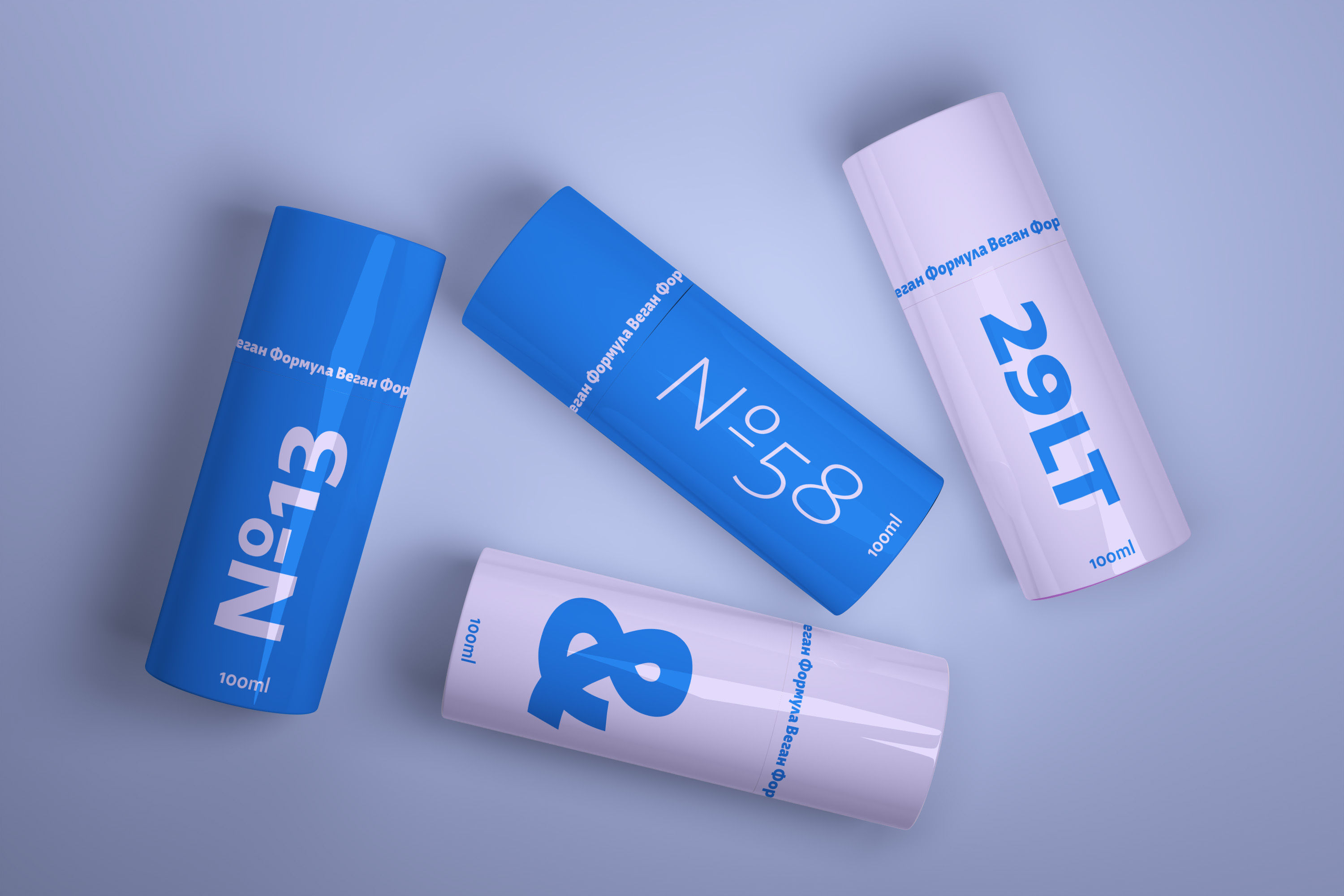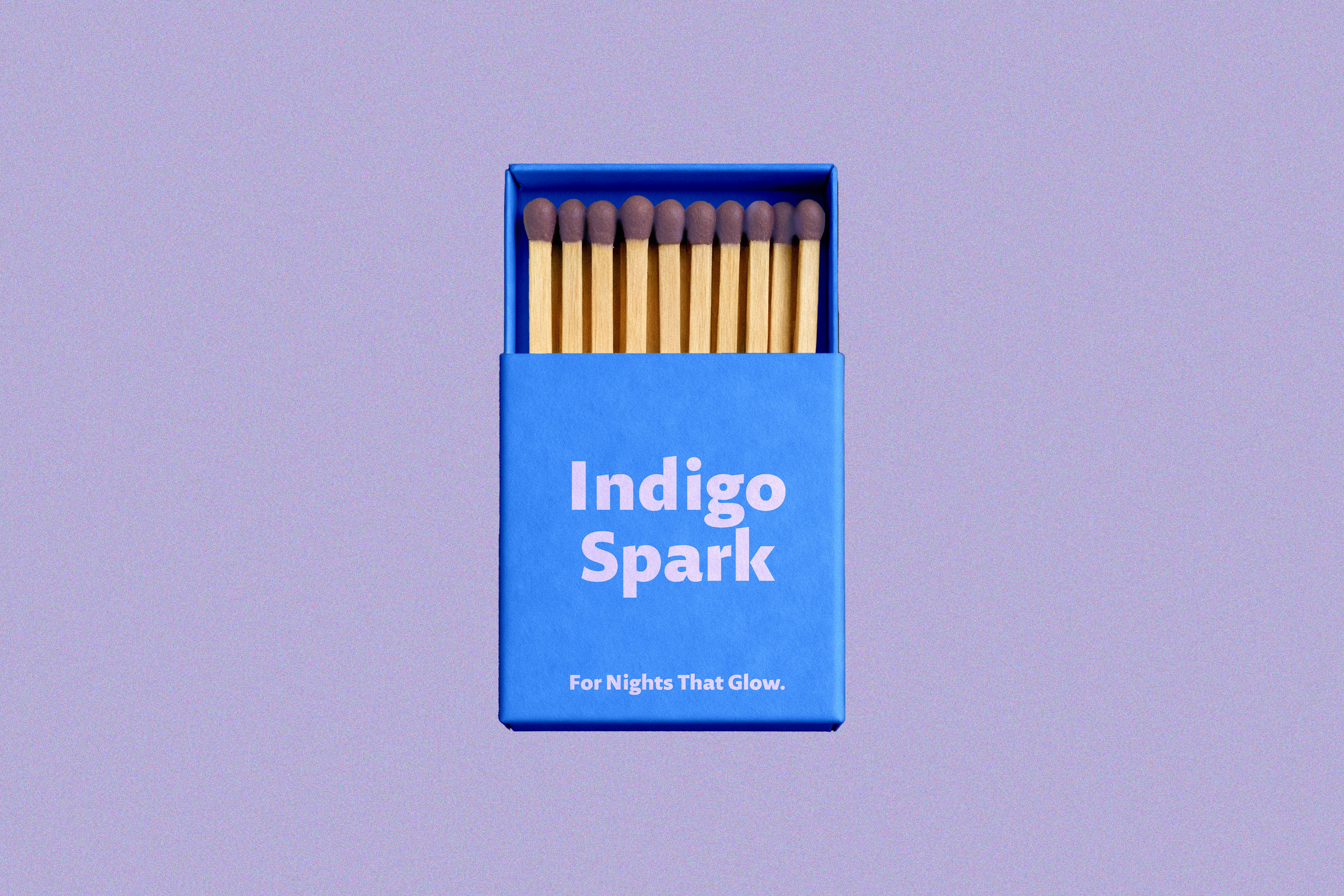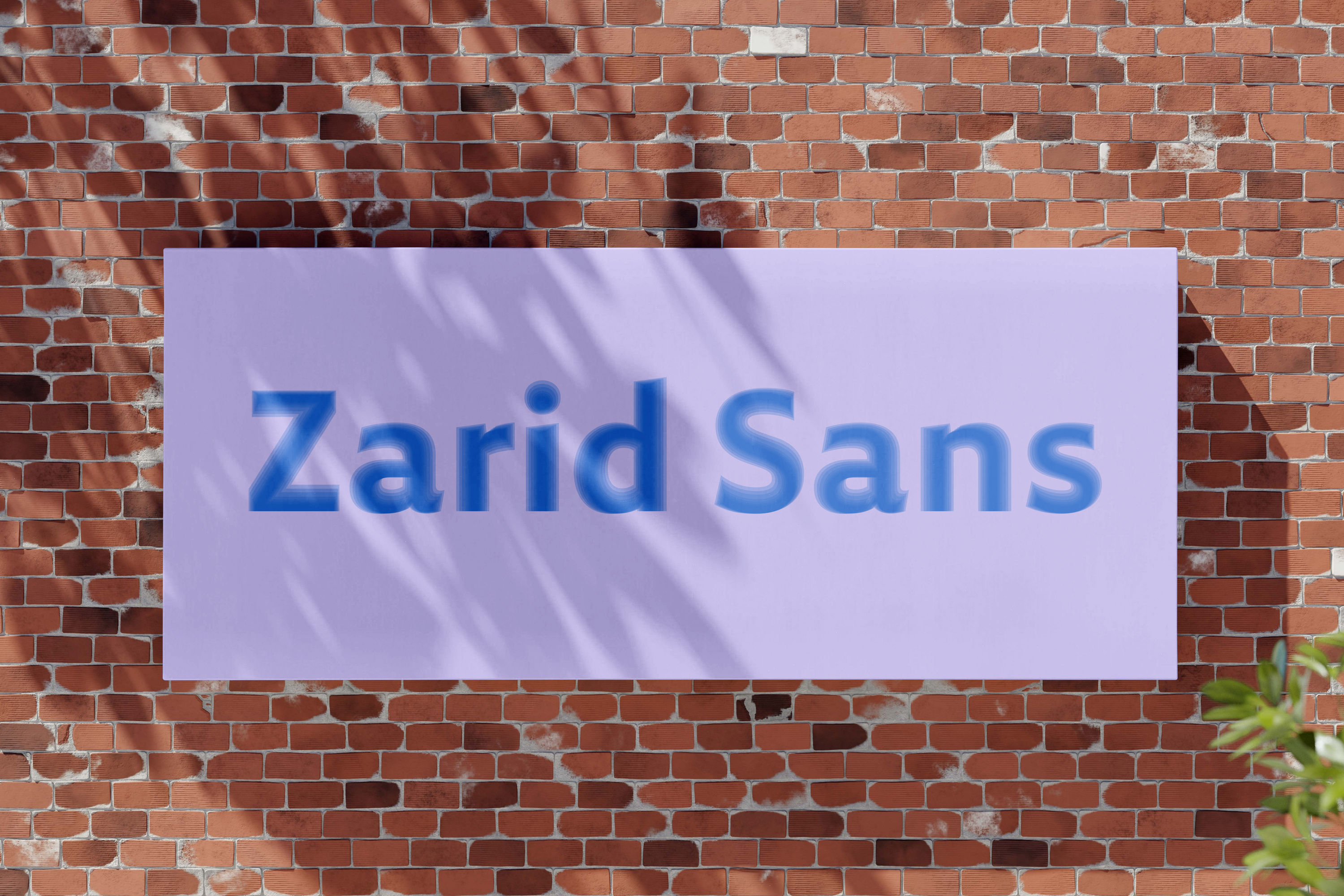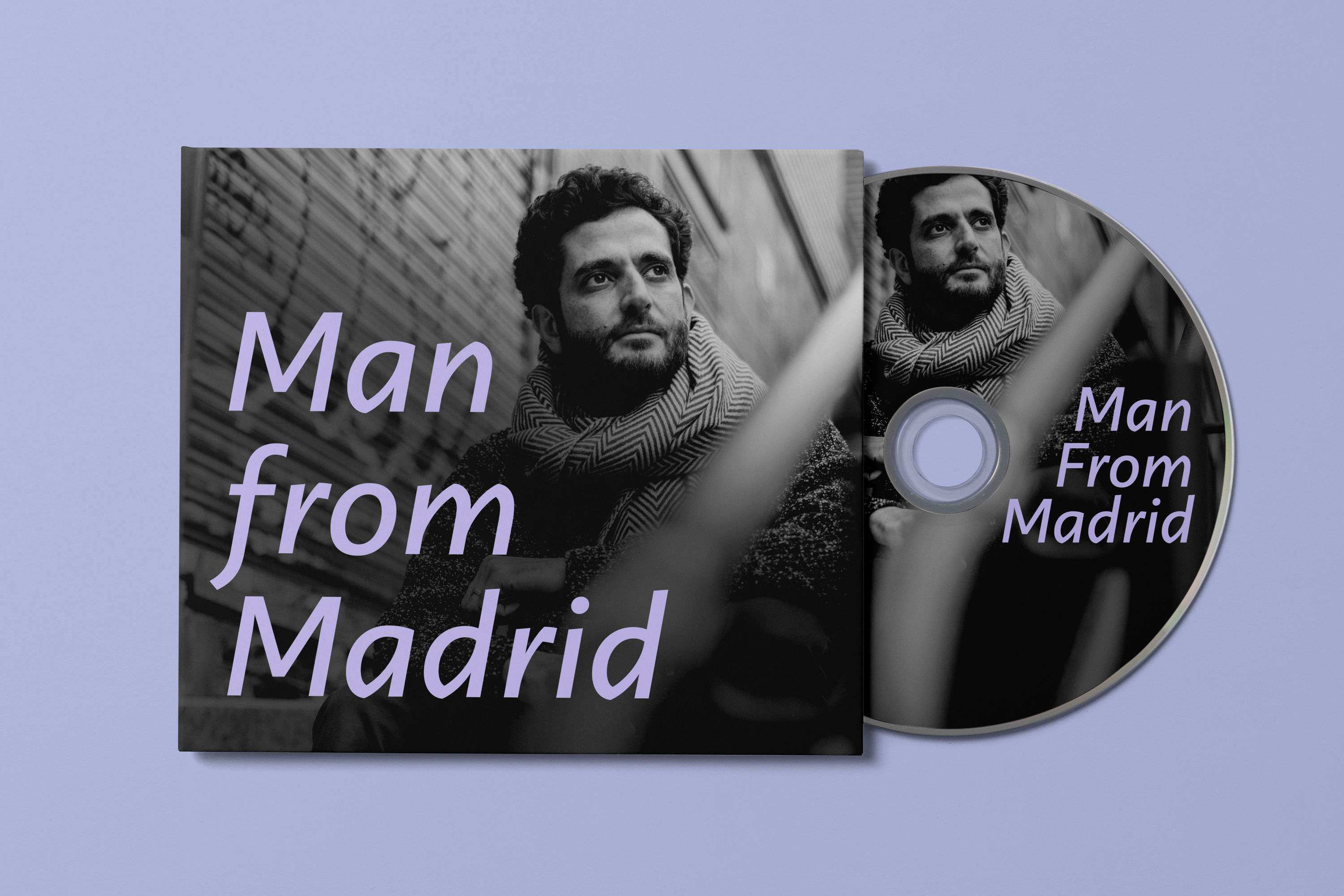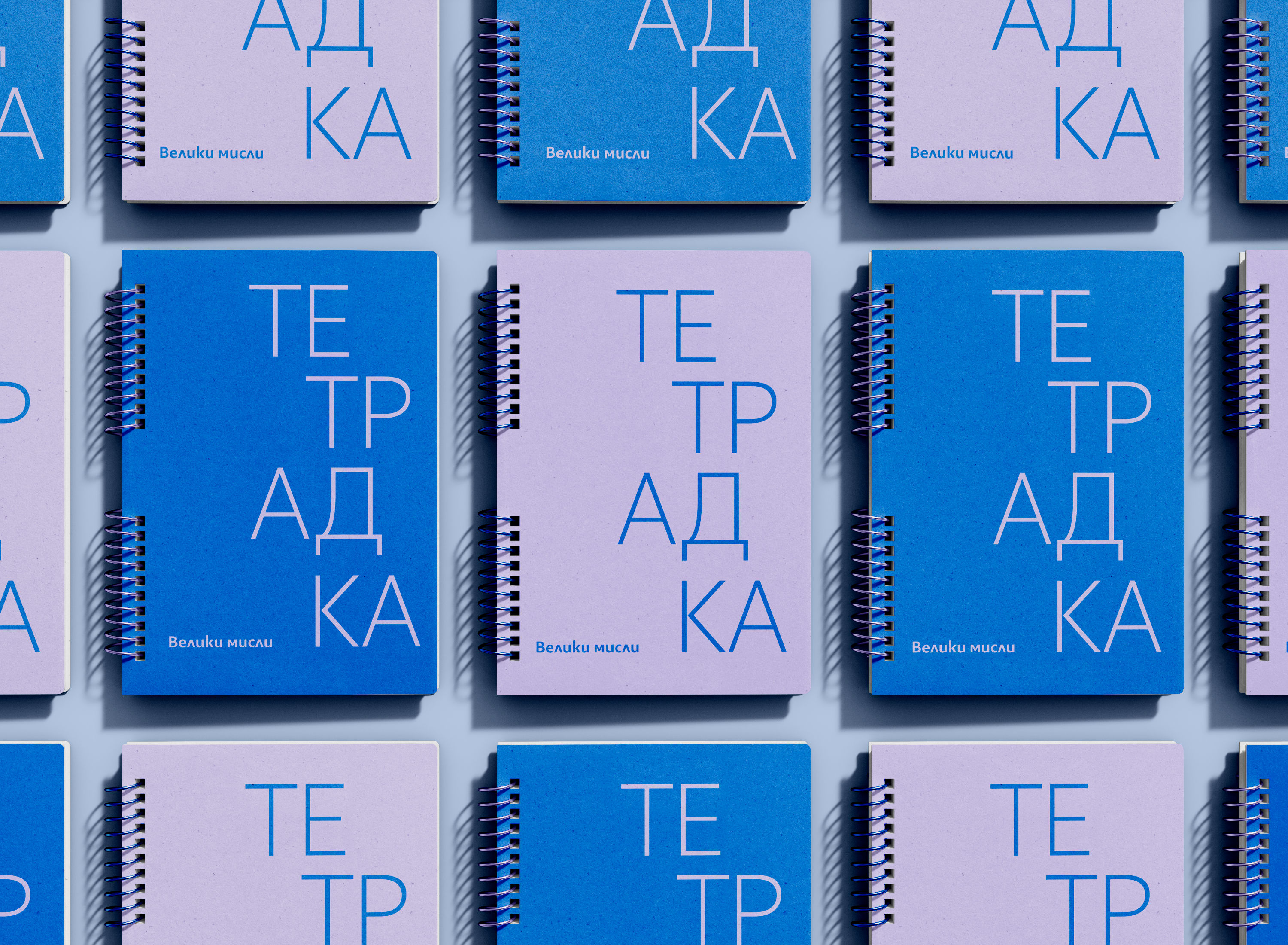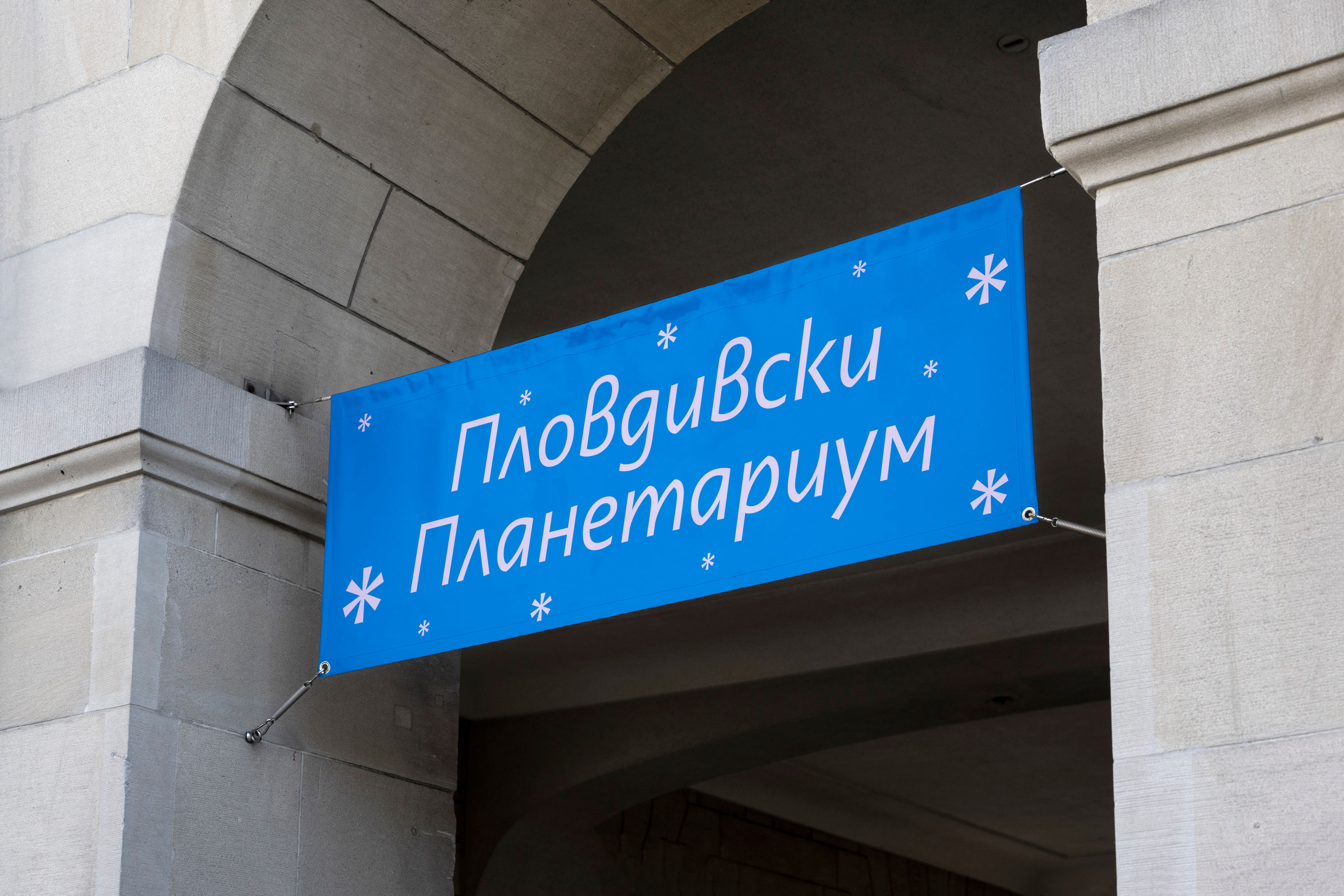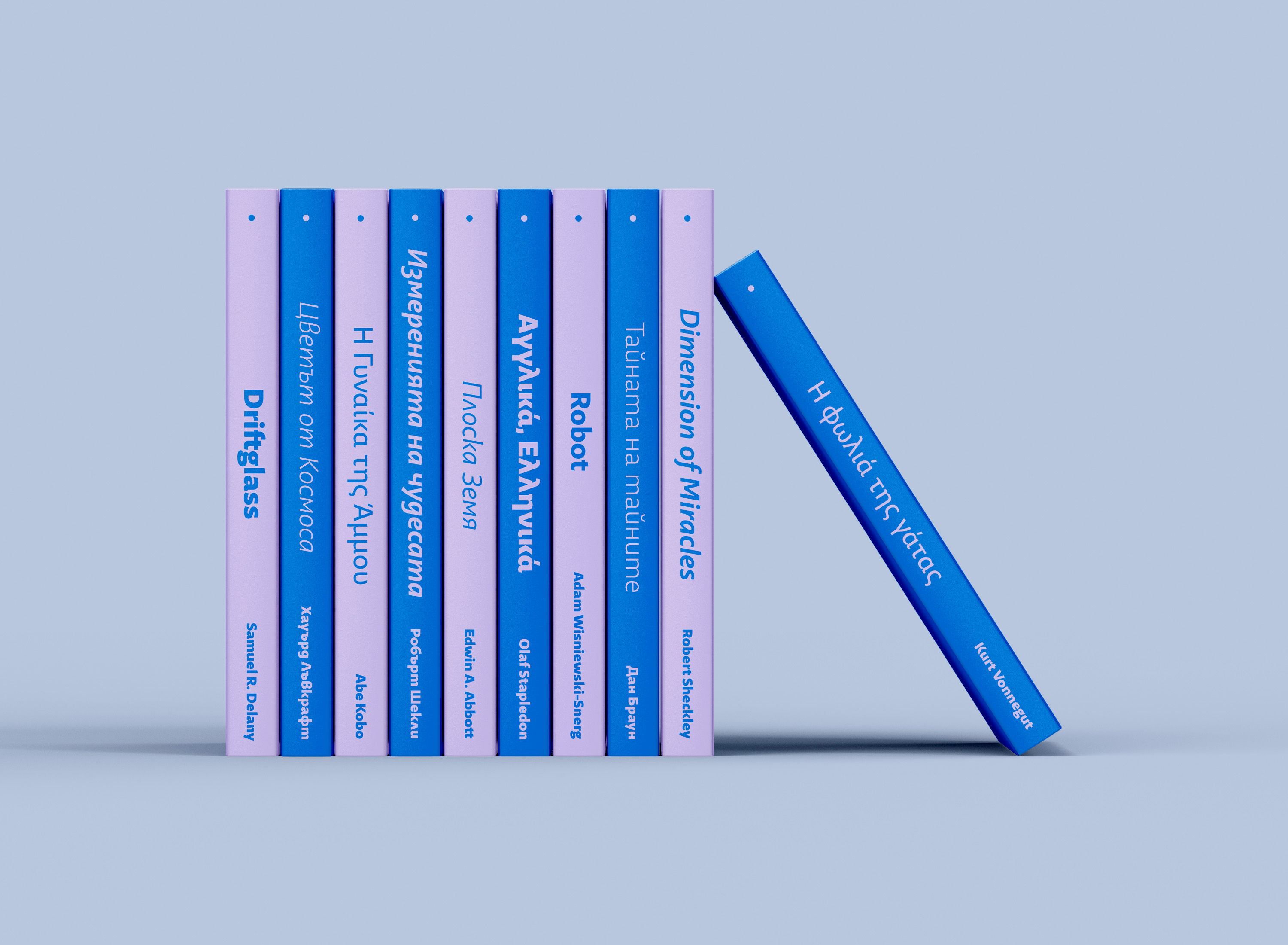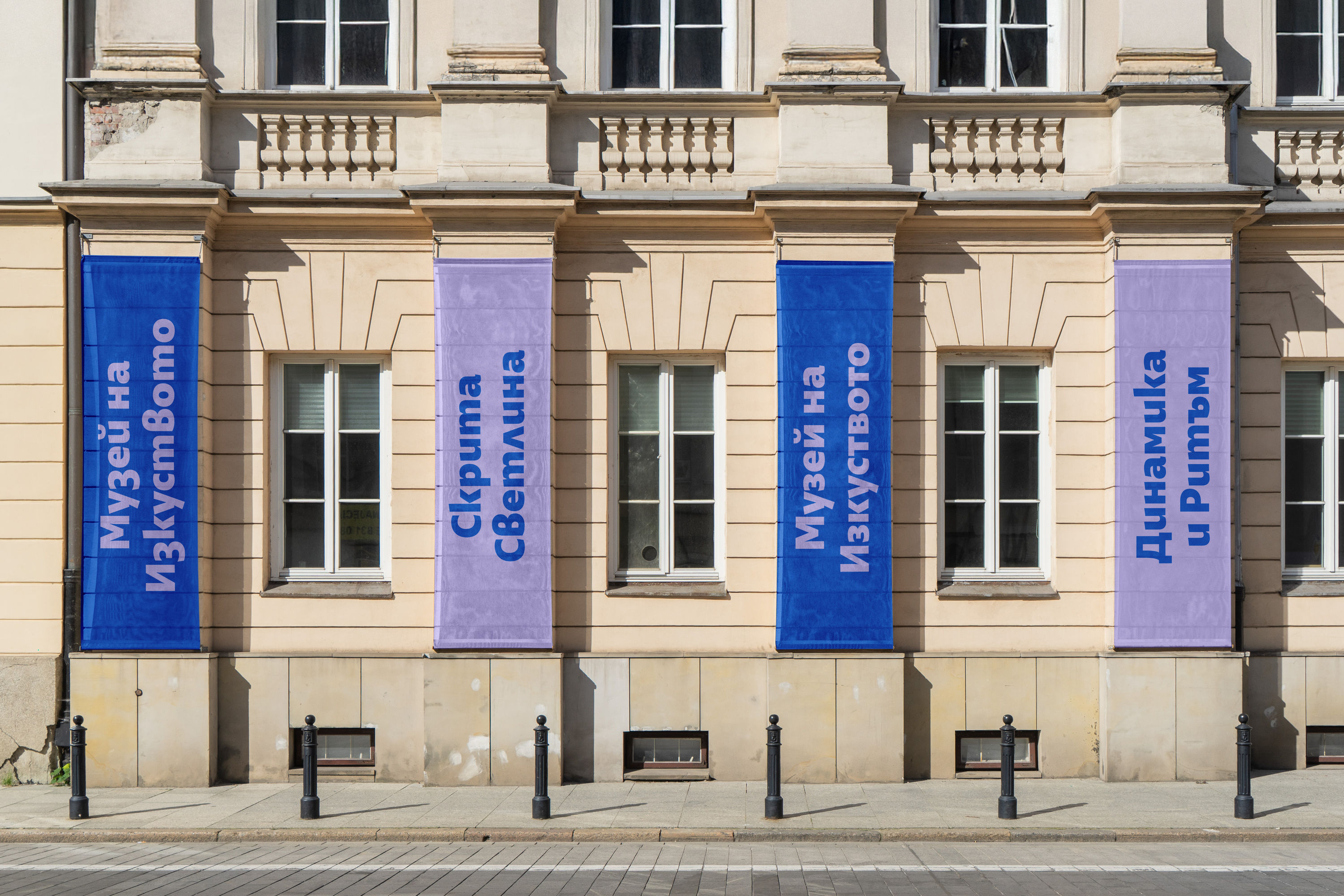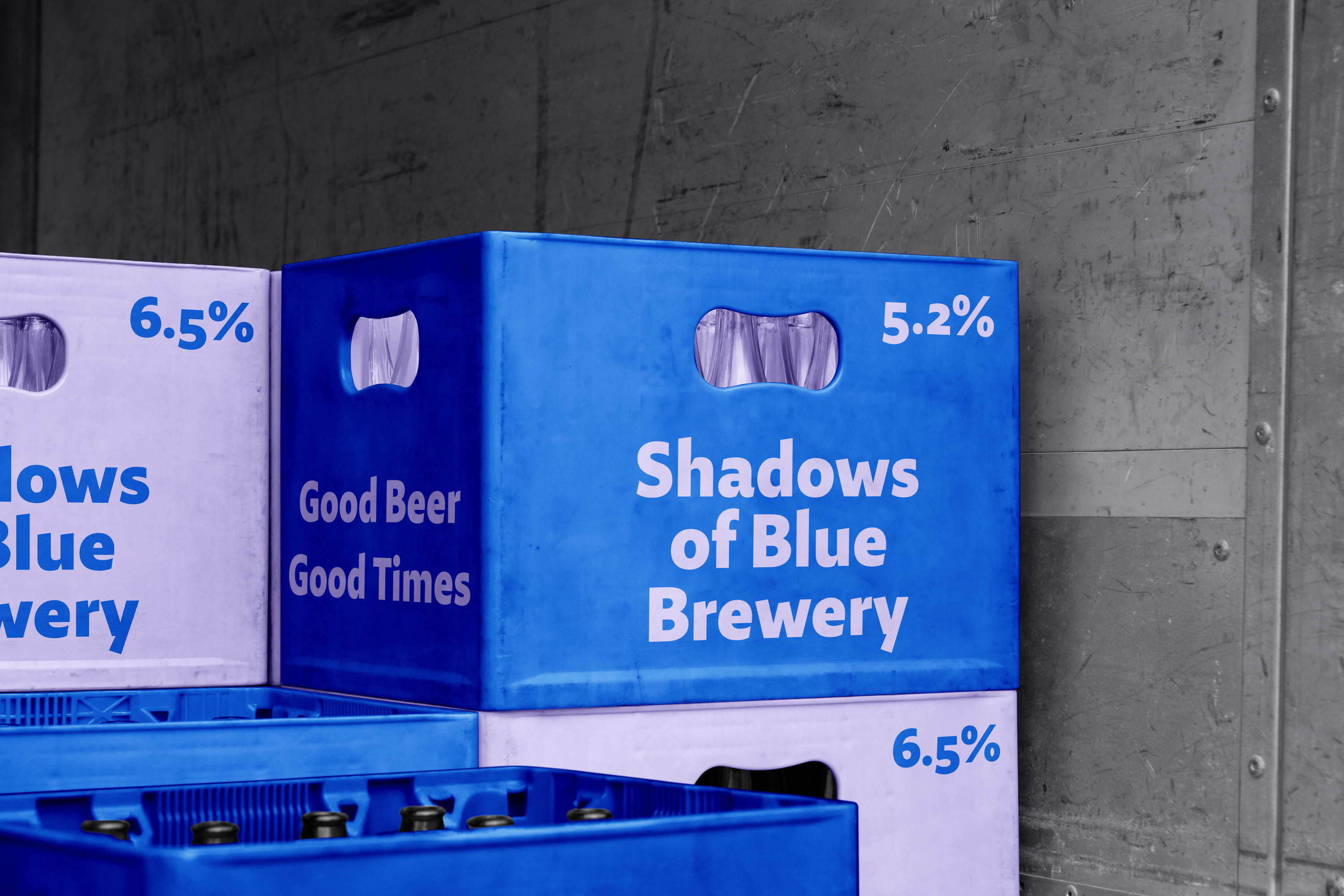
Zarid
Zarid Sans is a contemporary typeface with strong calligraphic features. Unlike geometric or neo-grotesque sans serifs, it carries a quiet sense of warmth and expression, giving it a distinctive yet unobtrusive presence. Clean outlines are balanced by a humanistic flair, resulting in letterforms that feel smooth, open and approachable without losing precision. Subtle unconventional details add an elegant twist and a contemporary character.
Carefully considered proportions—moderate x-height paired with relatively long ascenders and descenders—support both readability and rhythm across a wide range of sizes. Designed for versatility, Zarid Sans performs equally well in extended text and larger display settings. The family supports Latin, Cyrillic and Greek, making it well suited for contemporary multilingual projects in both print and digital environments.
Design
Jan Fromm, Krista Radoeva
Scripts
Latin, Cyrillic, Greek
Axis
Weight
Variable Axes
Calligraphic
Messenger
Stylistic Sets
Serbian Cyrillic SS01
Bulgarian Cyrillic SS02
No Ligatures
Discretionary Ligatures DLIG